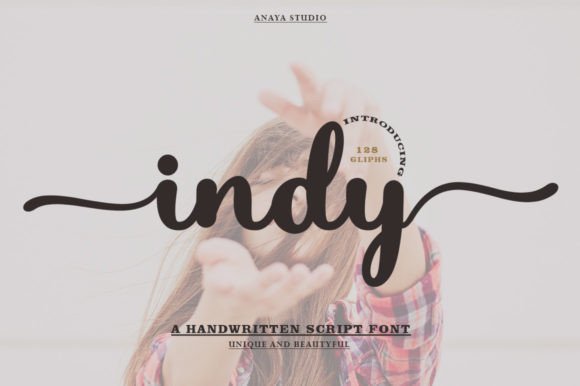
Welcome to the world of Indy Font! This elegant script font family is a perfect combination of style and sophistication, making it an ideal choice for all your fashion design needs. Created by the talented Anaya Studio, Indy Font is a versatile and trendy font that will give your designs a personalized and unique look.
Indy Font is the perfect choice for all your design projects, be it wedding invitations, social media posts, advertisements, or product packaging. With its latest style letters, Indy Font will elevate the look of your designs and make them stand out from the crowd.
The beauty of Indy Font lies in its ability to add a touch of handmade elegance to any project. It's perfect for wall displays, product designs, labels, photography, watermarks, invitations, stationery, and any project that requires a handwritten taste. Its stylish and graceful strokes will add a touch of sophistication to your work, making it perfect for any occasion.
If you're looking for a font that's perfect for fashion design, then Indy Font is the way to go. It's a font that's rich in emotional appeal, with its elegant curves and stylish lines that will captivate the hearts of your customers. It's a font that will make your products shine and stand out from the crowd.
In summary, Indy Font is the perfect choice for anyone looking for a font that's both stylish and versatile. Its latest style letters will add a touch of sophistication to your designs, making them perfect for all your fashion design needs. So, what are you waiting for? Download Indy Font today and elevate your designs to a whole new level!